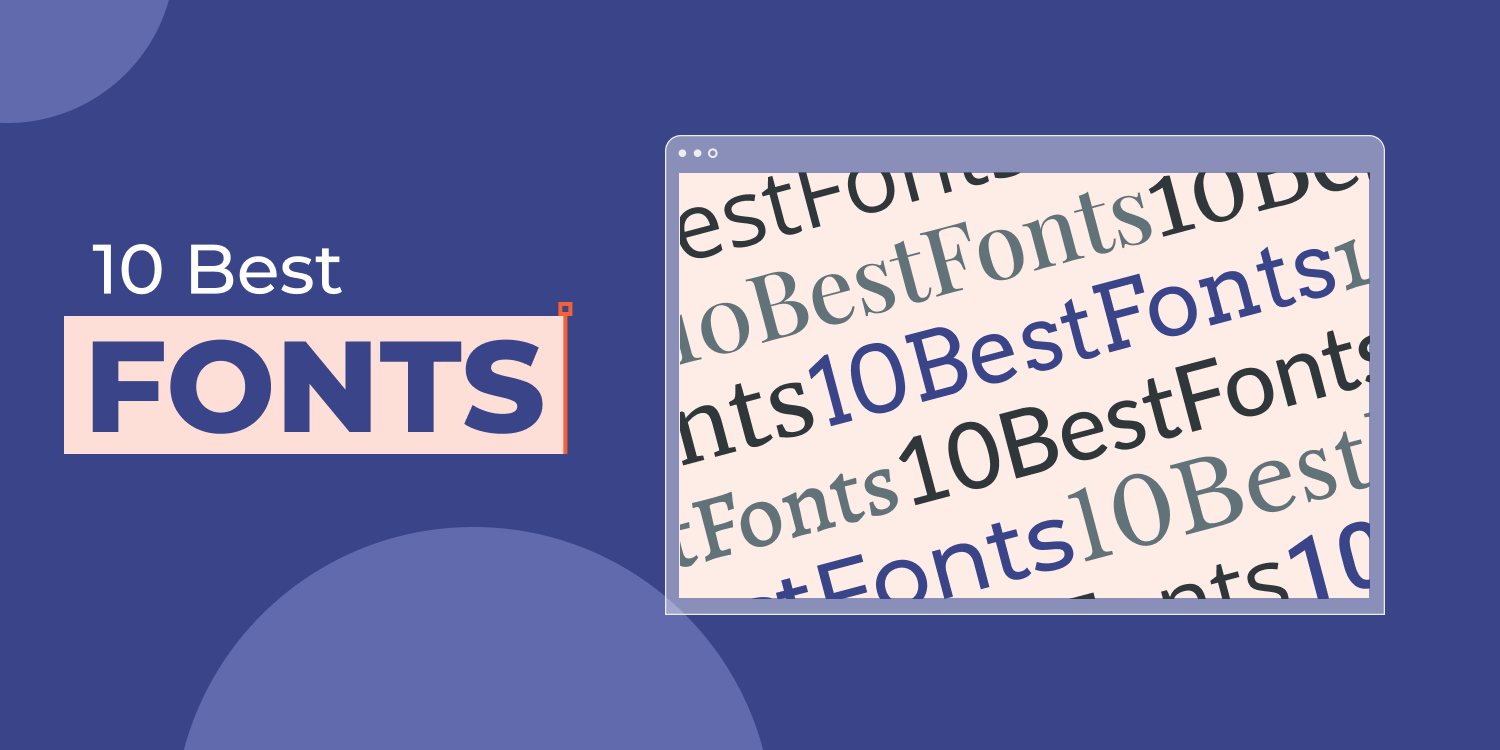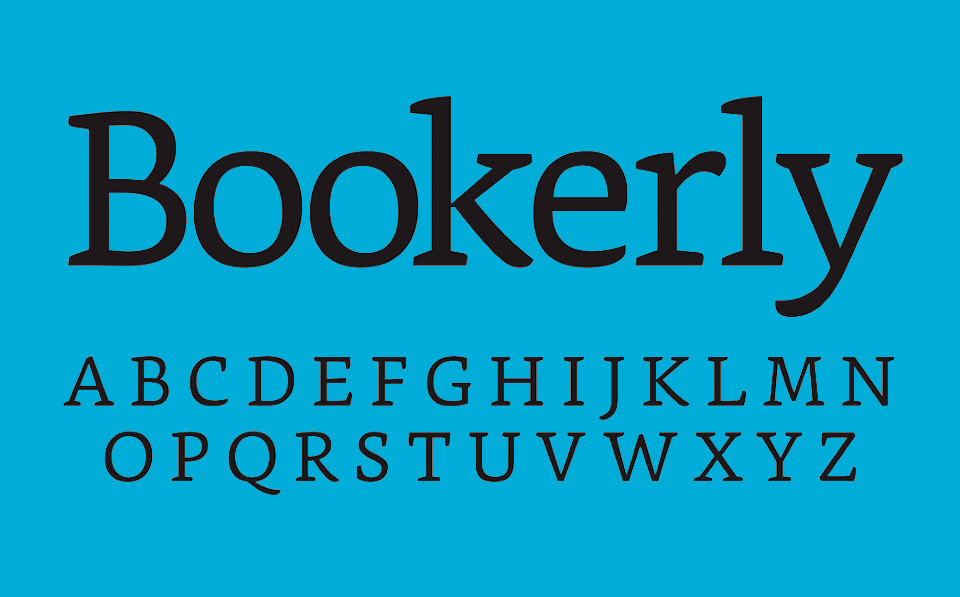
Best Fonts For Digital Reading . Which font did each person like the best? — explore the best fonts for reading: Check out the typetype list of the best fonts for. Proxima nova, georgia, and fira have characteristics that make. The best font for readability often depends on the context and medium. fonts that are best for reading on screen are ones with distinctive and open letterforms. — the three main metrics collected were: Best sans serif fonts for reading online. — here are the 12 best readable fonts that you can use for your digital and printed projects: — what is the best font for readability?
— explore the best fonts for reading: — what is the best font for readability? fonts that are best for reading on screen are ones with distinctive and open letterforms. — here are the 12 best readable fonts that you can use for your digital and printed projects: Which font did each person like the best? Proxima nova, georgia, and fira have characteristics that make. Best sans serif fonts for reading online. The best font for readability often depends on the context and medium. — the three main metrics collected were: Check out the typetype list of the best fonts for.
Best Fonts For Digital Reading — what is the best font for readability? The best font for readability often depends on the context and medium. — explore the best fonts for reading: Proxima nova, georgia, and fira have characteristics that make. — the three main metrics collected were: — here are the 12 best readable fonts that you can use for your digital and printed projects: Which font did each person like the best? Best sans serif fonts for reading online. — what is the best font for readability? Check out the typetype list of the best fonts for. fonts that are best for reading on screen are ones with distinctive and open letterforms.
Best Fonts for Digital Media Best Fonts For Digital Reading — here are the 12 best readable fonts that you can use for your digital and printed projects: — the three main metrics collected were: Best sans serif fonts for reading online. Check out the typetype list of the best fonts for. The best font for readability often depends on the context and medium. Proxima nova, georgia, and. Best Fonts For Digital Reading.
15+ Best Fonts for Reading in 2021 Free and Premium Fonts Best Fonts For Digital Reading — what is the best font for readability? — here are the 12 best readable fonts that you can use for your digital and printed projects: Which font did each person like the best? The best font for readability often depends on the context and medium. Best sans serif fonts for reading online. Check out the typetype list. Best Fonts For Digital Reading.
DSDigital Bold free Font What Font Is Best Fonts For Digital Reading fonts that are best for reading on screen are ones with distinctive and open letterforms. The best font for readability often depends on the context and medium. Best sans serif fonts for reading online. Which font did each person like the best? — explore the best fonts for reading: Check out the typetype list of the best fonts. Best Fonts For Digital Reading.
Readable & Stylish The 15 Best Fonts for Reading Best Fonts For Digital Reading — the three main metrics collected were: Proxima nova, georgia, and fira have characteristics that make. Which font did each person like the best? The best font for readability often depends on the context and medium. — explore the best fonts for reading: Check out the typetype list of the best fonts for. — here are the. Best Fonts For Digital Reading.
15+ Best Fonts for Reading in 2021 Free and Premium Fo MasterBundles Best Fonts For Digital Reading The best font for readability often depends on the context and medium. Which font did each person like the best? Proxima nova, georgia, and fira have characteristics that make. — explore the best fonts for reading: Check out the typetype list of the best fonts for. fonts that are best for reading on screen are ones with distinctive. Best Fonts For Digital Reading.
15+ Best Fonts for Reading in 2021 Free and Premium Fonts Best Fonts For Digital Reading fonts that are best for reading on screen are ones with distinctive and open letterforms. — the three main metrics collected were: Best sans serif fonts for reading online. The best font for readability often depends on the context and medium. Which font did each person like the best? — explore the best fonts for reading: Check. Best Fonts For Digital Reading.
Digital Font And Number 120067 Vector Art at Vecteezy Best Fonts For Digital Reading Proxima nova, georgia, and fira have characteristics that make. Best sans serif fonts for reading online. fonts that are best for reading on screen are ones with distinctive and open letterforms. The best font for readability often depends on the context and medium. Check out the typetype list of the best fonts for. — the three main metrics. Best Fonts For Digital Reading.
12 Best reading fonts as of 2023 Slant Best Fonts For Digital Reading Which font did each person like the best? — the three main metrics collected were: fonts that are best for reading on screen are ones with distinctive and open letterforms. Proxima nova, georgia, and fira have characteristics that make. Check out the typetype list of the best fonts for. The best font for readability often depends on the. Best Fonts For Digital Reading.
Best Fonts for Digital Media Best Fonts For Digital Reading — what is the best font for readability? Proxima nova, georgia, and fira have characteristics that make. — here are the 12 best readable fonts that you can use for your digital and printed projects: The best font for readability often depends on the context and medium. — the three main metrics collected were: Check out the. Best Fonts For Digital Reading.